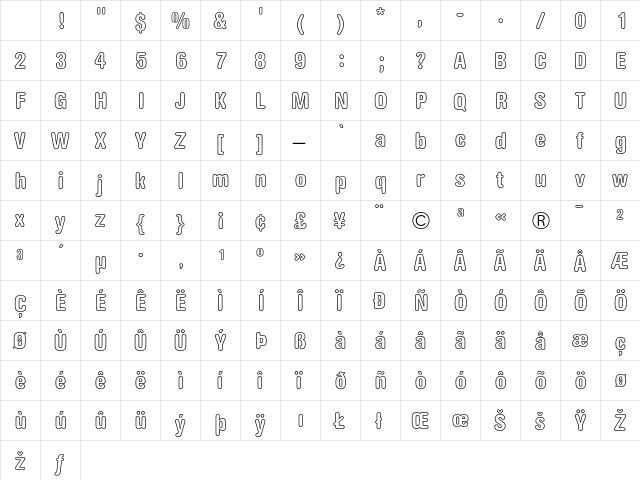
AG Book Rounded Bold Condensed Outline
Style: Bold Condensed Outline
Complete AG Book Rounded Bold Condensed Outline glyph index. Displaying only characters natively supported by AG Book Rounded Bold Condensed Outline font.
Design Context for AG Book Rounded
AG Book Rounded is built around its visual character rather than neutral utility - its distinctive forms are designed to make an impression at display sizes. Its bold stroke weight gives it real presence on the page.
Font Pairing: Pair with a clean neutral sans-serif for body copy to let AG Book Rounded's character lead without overwhelming the composition.
Pro Tip: Use AG Book Rounded exclusively at display sizes - it was designed to be seen, not read at length. Let a neutral companion handle body copy.